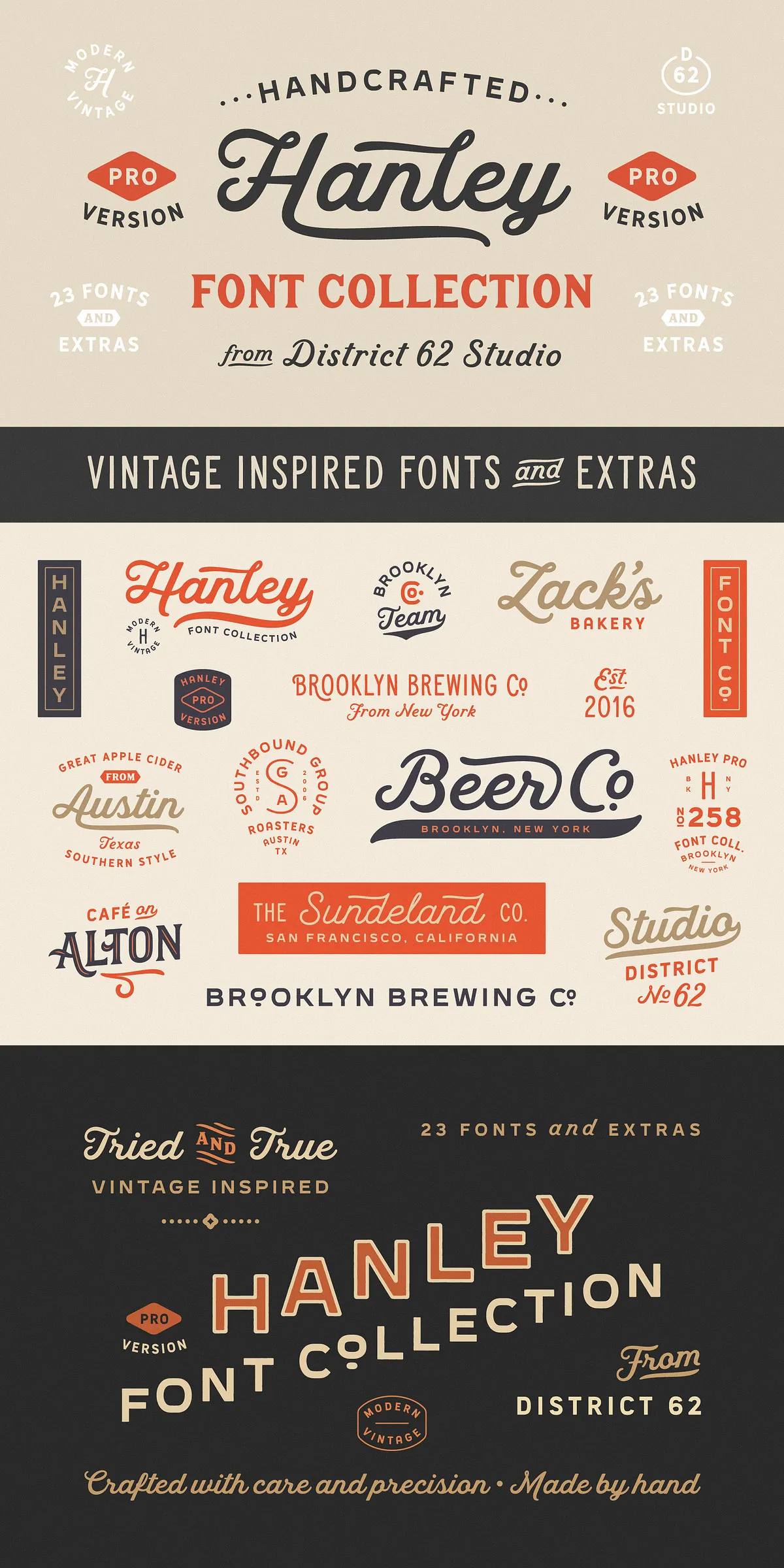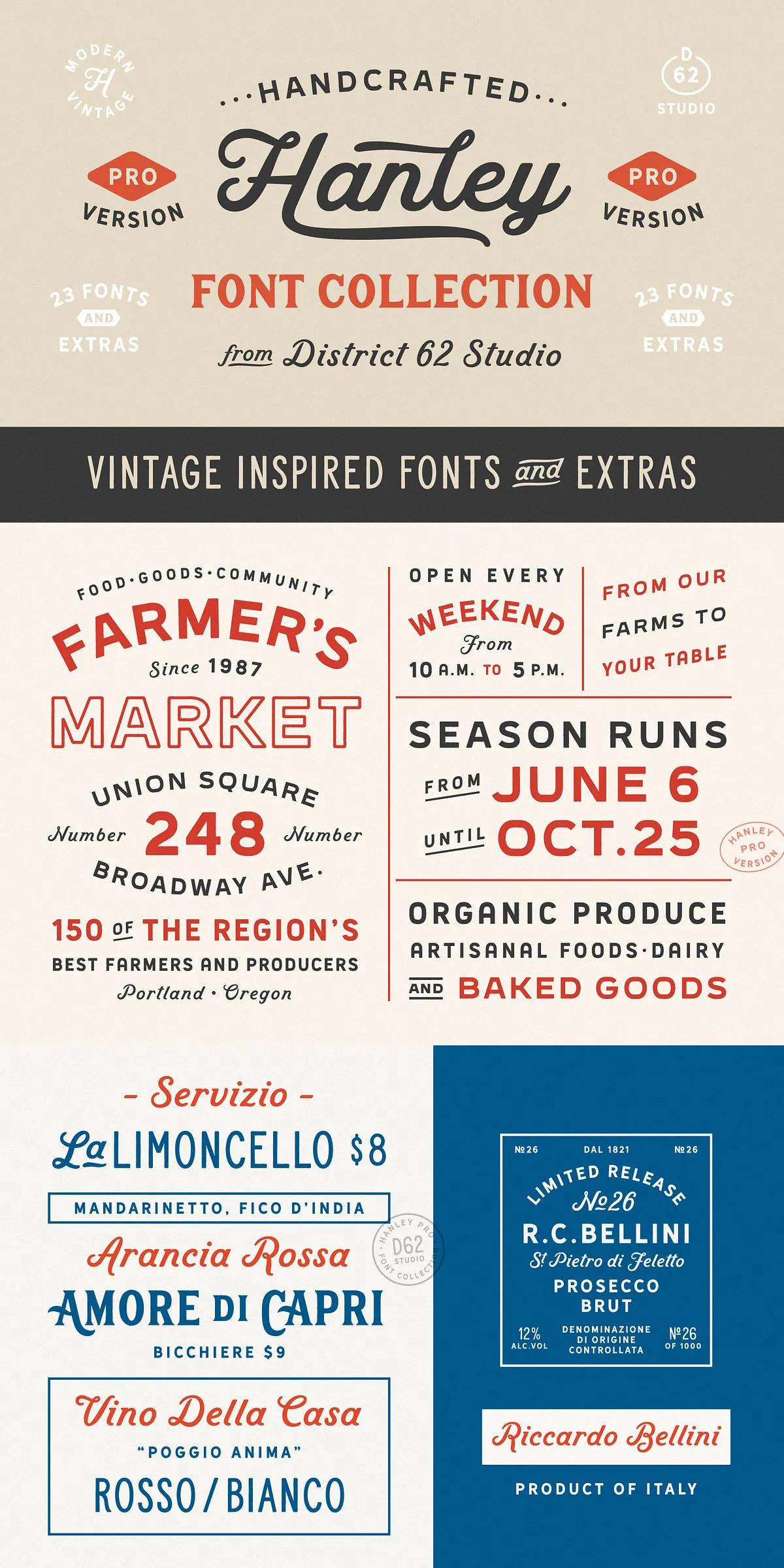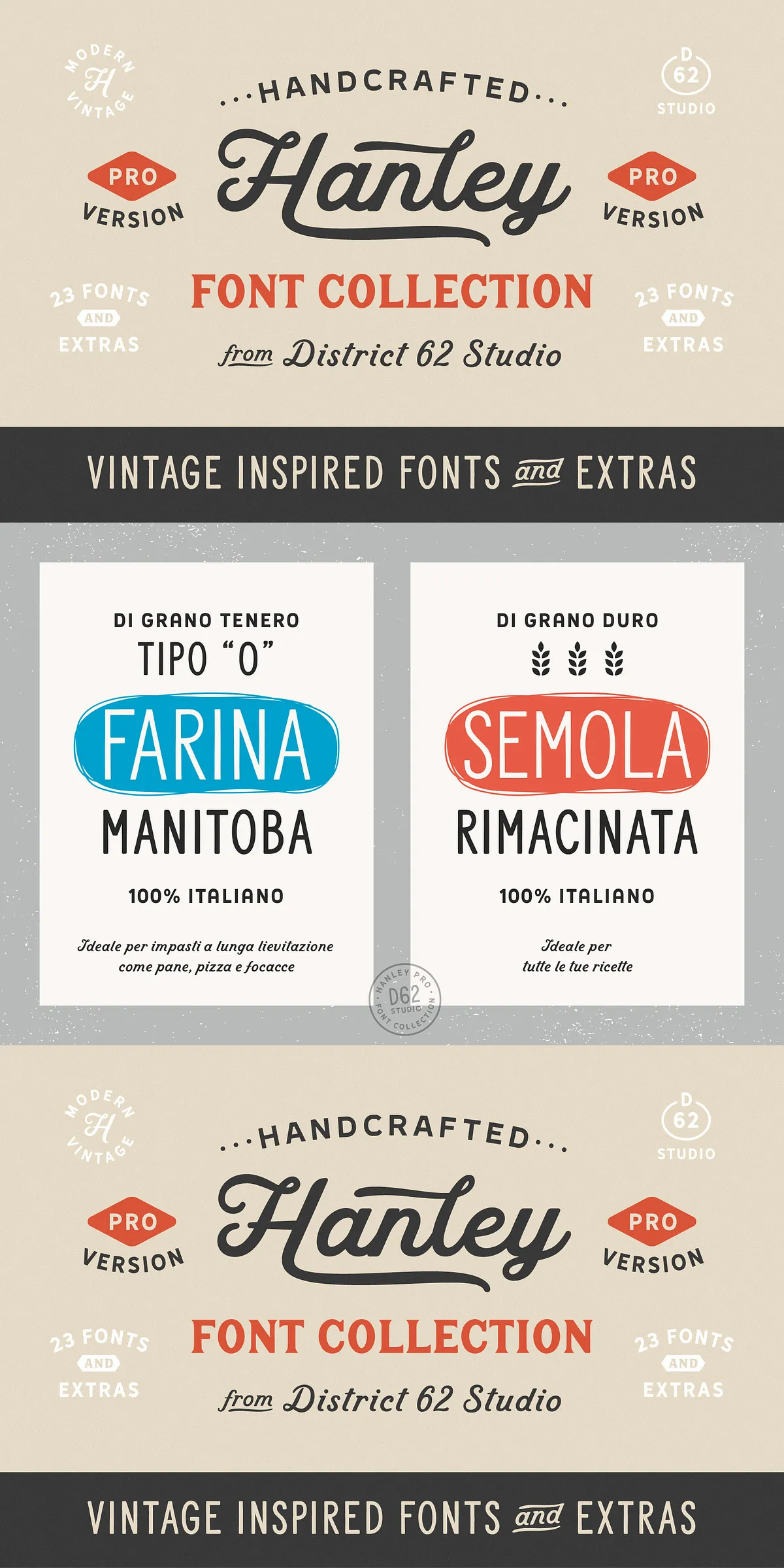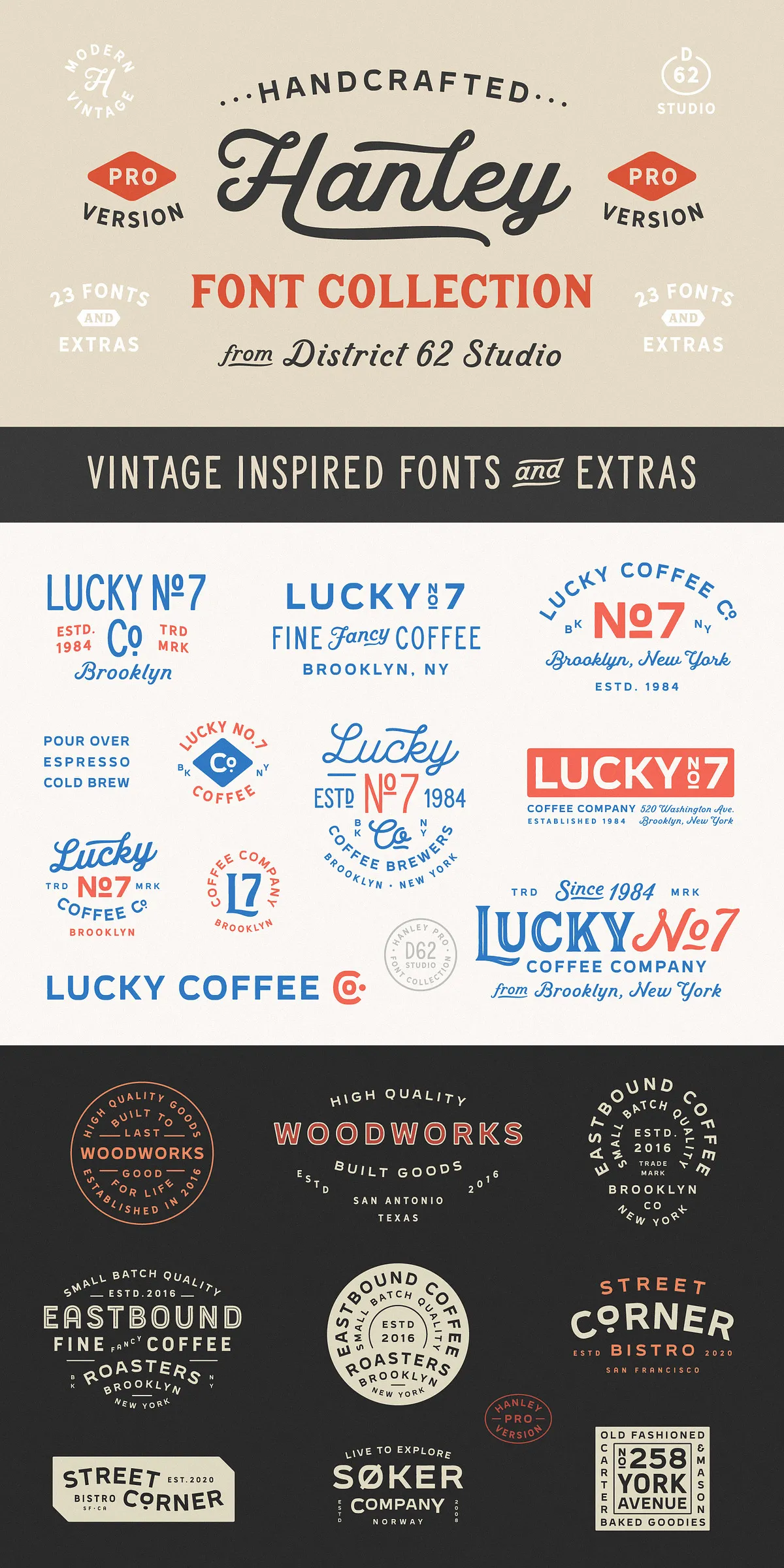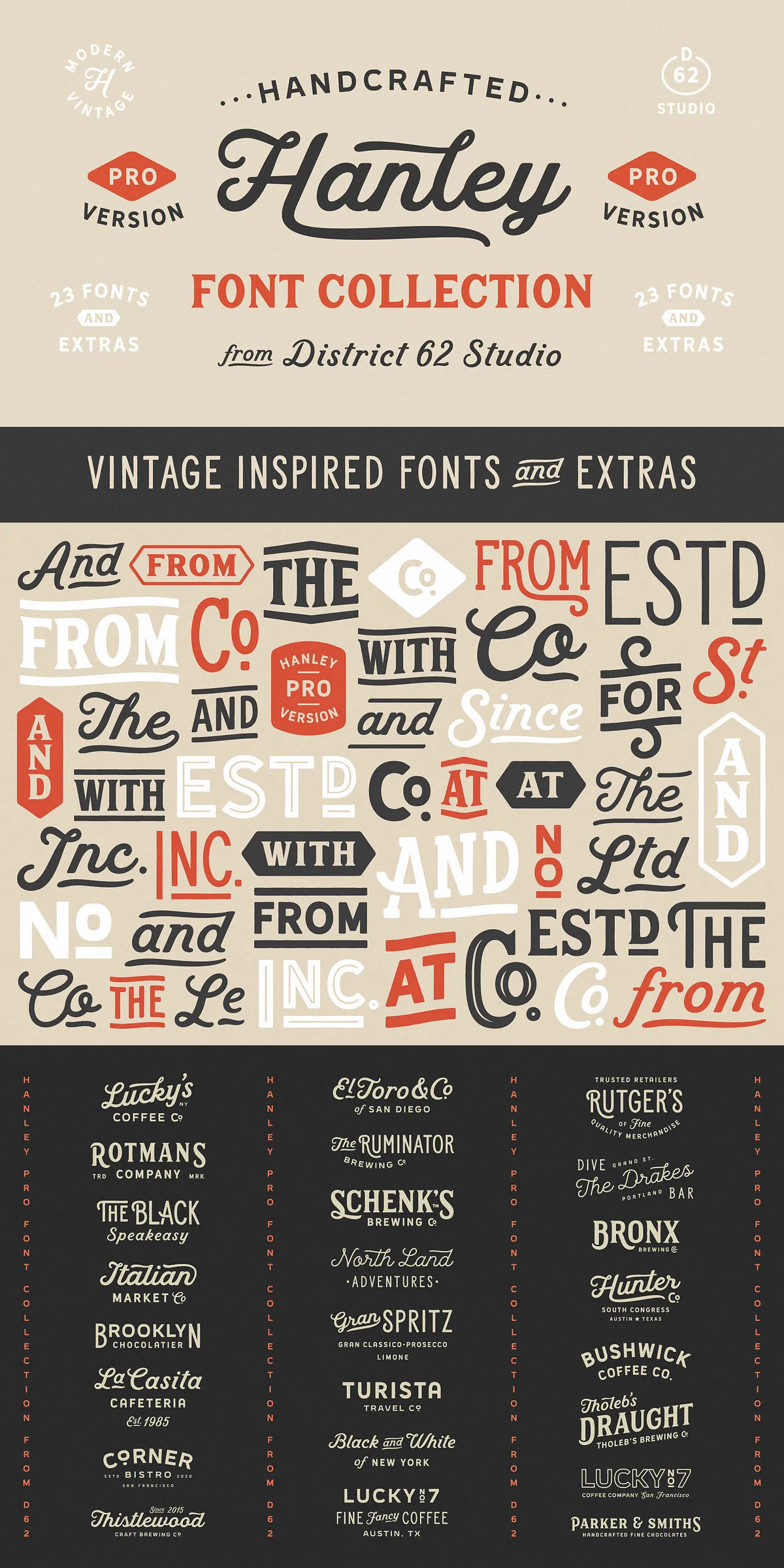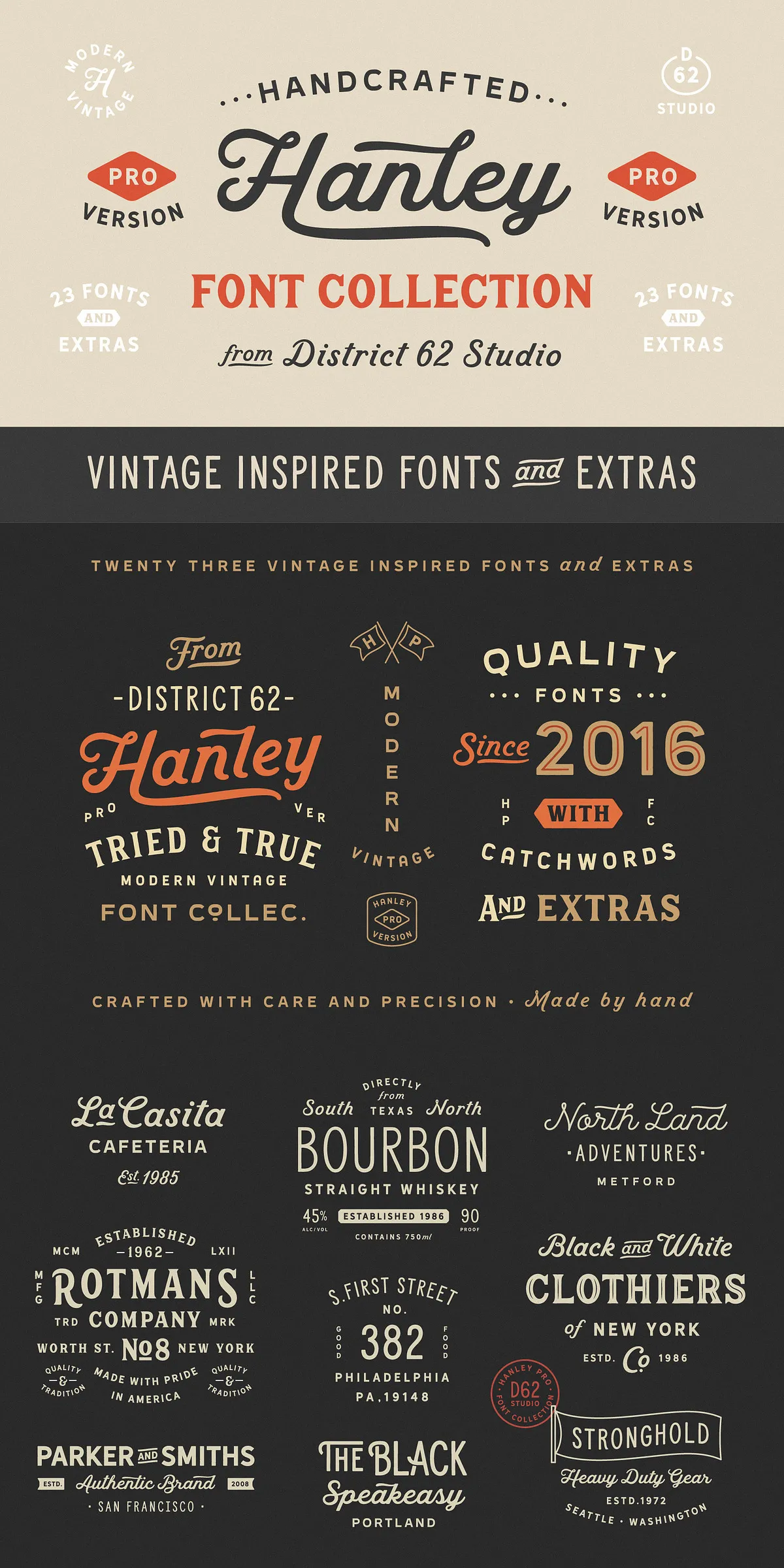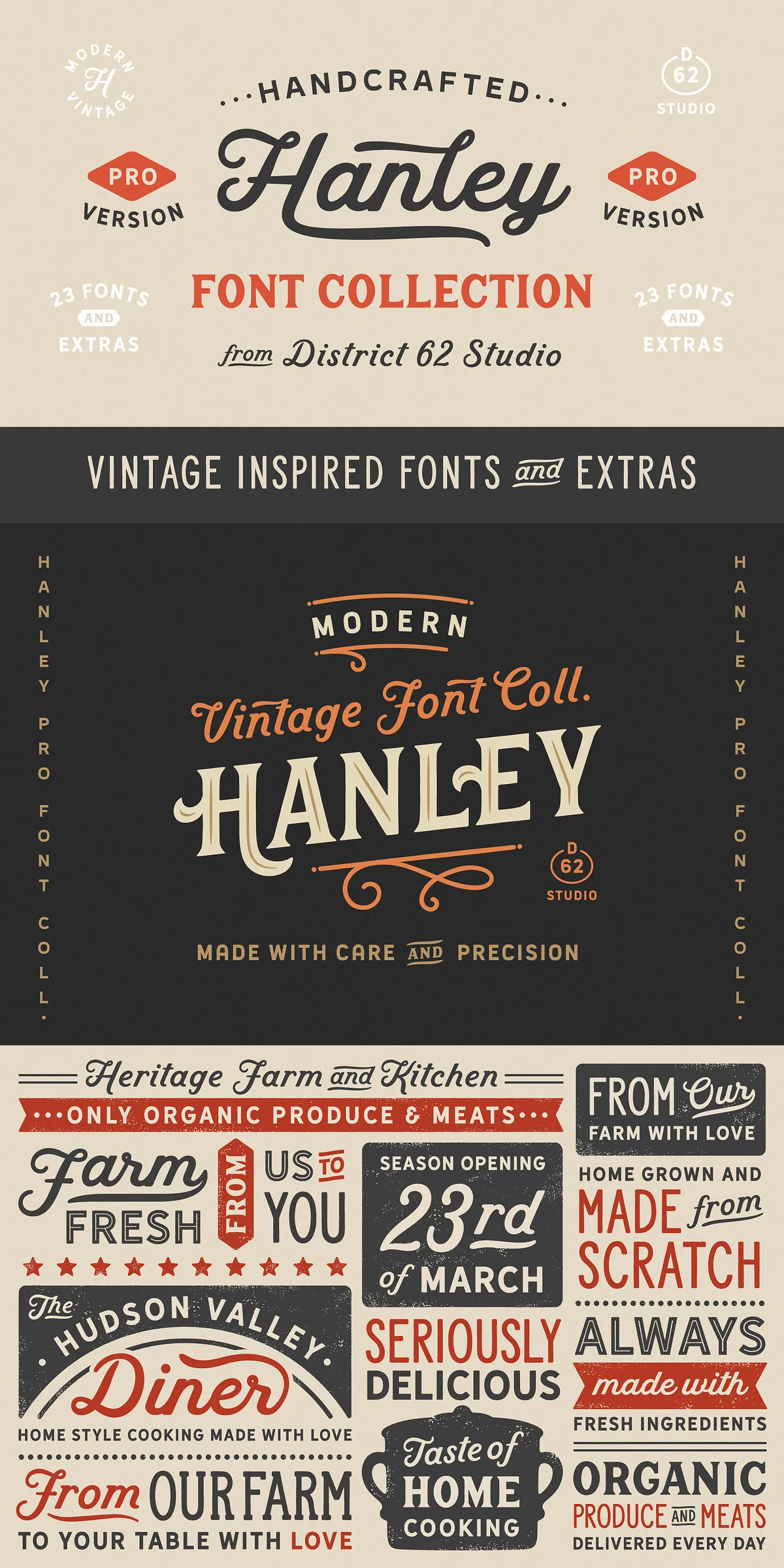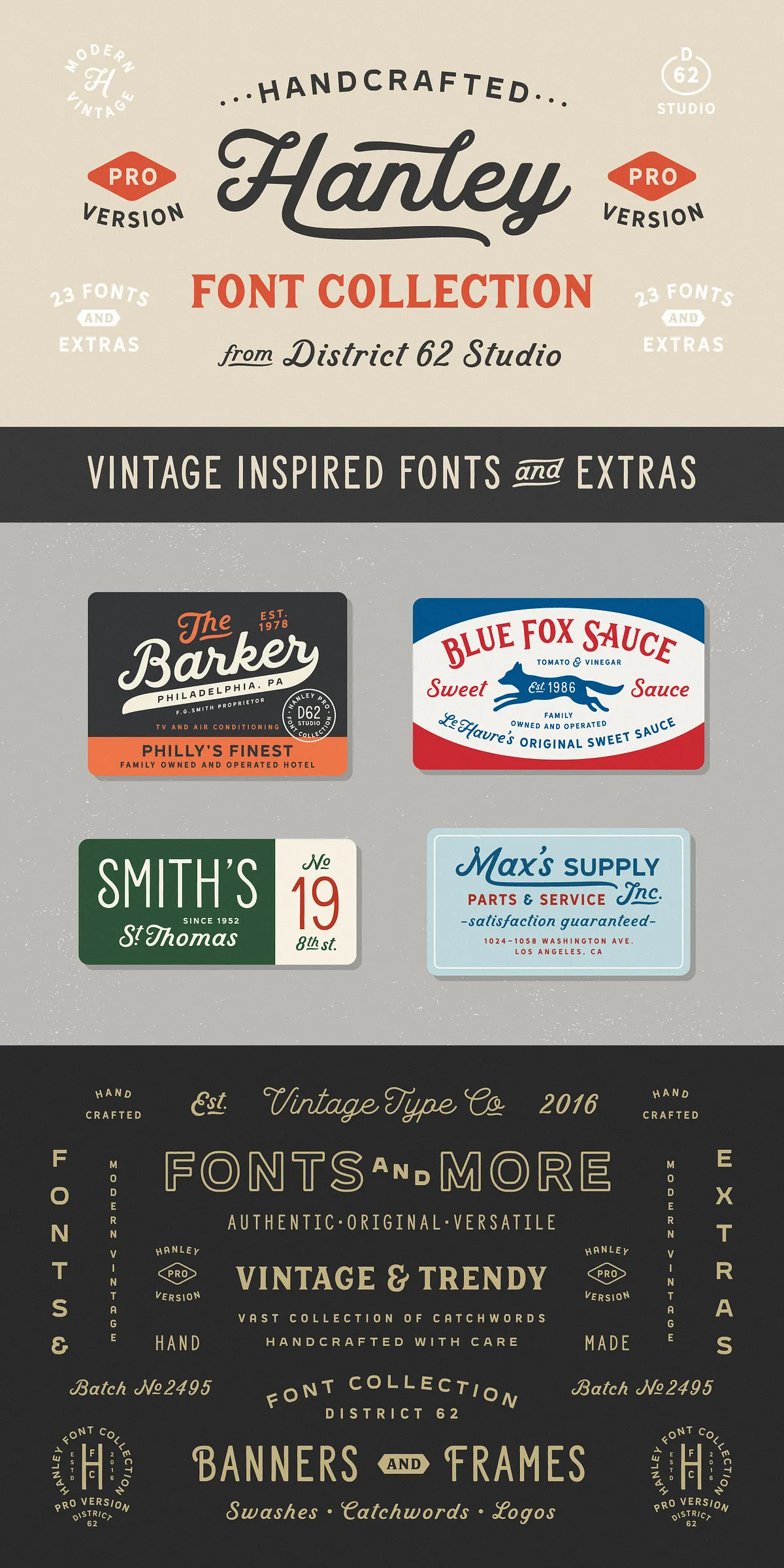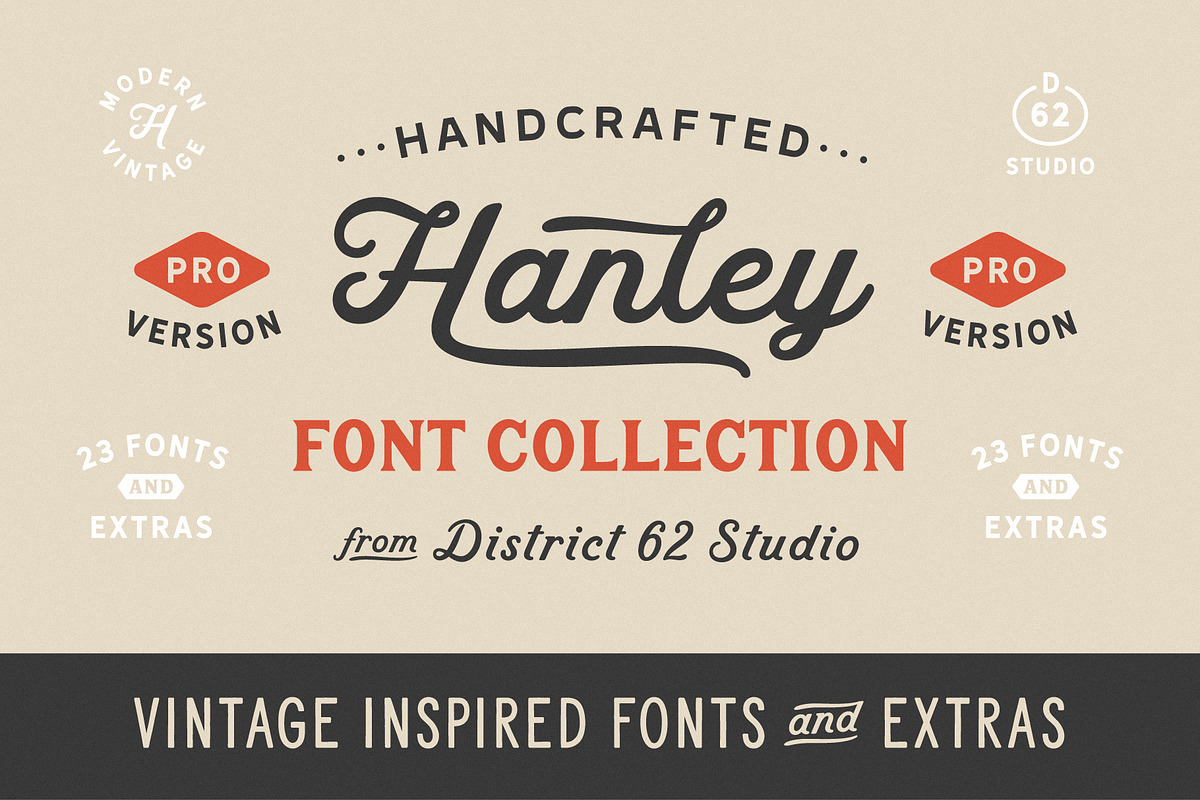
Revolutionize your design toolkit with the new PRO VERSION of the Hanley Font Collection—a bold evolution of a beloved type family now packed with innovation, style, and unmatched flexibility. This exclusive update delivers 10 new, high-impact font styles, 36 stunning bonus logos, advanced typographic features, and expanded language support. Whether you’re crafting brand identities, editorial layouts, or digital experiences, Hanley Pro is engineered to elevate your work with precision, personality, and professionalism.
What’s New in Hanley Pro? A Complete Design Powerhouse
Forget incremental updates—Hanley Pro is a full-scale reimagining. We’ve poured over feedback from designers, added groundbreaking new styles, and enhanced every element for real-world performance. Here’s what sets this version apart:
- 10 New Exclusive Font Styles: Expand your creative palette with a fresh range of typefaces built for modern versatility. Including the Hanley Script Alt, Hanley Italic, and the dynamically flexible Sans Two and Inline.
- Expanded Sans Dimensions: Introduce visual rhythm and scale with the new Sans Wide and Sans Extra Wide styles—perfect for headlines, banners, and bold typographic statements.
- Outline Variants: Now available in both Sans Wide Outline and Sans Extra Wide Outline—ideal for layering, masking, and creating custom visual effects in branding and digital design.
- Slim Variants with Bold Power: The Hanley Slim Bold and Hanley Slim Serif Bold offer razor-thin lines with commanding presence—perfect for minimalist yet impactful designs.
- Small Caps Expansion: Already strong? Now even better. The Block Styles are enhanced with full small caps support, unlocking new levels of typographic refinement.
- Advanced Character Set: More alternative glyphs, improved catchword integration, and over 700+ characters—ready for complex linguistic needs across 90+ languages.
- 36 Bonus Logos Included: Instantly elevate your brand projects with a curated set of 36 high-quality, editable logos that pair perfectly with Hanley’s aesthetic—ideal for designers, startups, and agencies.
Why Designers Are Switching to Hanley Pro
Design isn’t just about aesthetics—it’s about function, emotion, and impact. Hanley Pro was built with this philosophy in mind. Its new styles aren’t just visually striking; they’re designed to work together seamlessly, creating unified typographic systems that tell a coherent story. The inclusion of multiple alternates, small caps, and comprehensive language support means fewer compromises and faster workflow cycles.
Whether you’re building a luxury brand, a lifestyle website, or a corporate identity, Hanley Pro offers the flexibility to scale across formats and audiences—without sacrificing clarity or charm.
Perfect for Every Creative Challenge
From editorial publications to social media campaigns, Hanley Pro adapts to every context with ease. Its clean sans forms shine in digital interfaces, while the subtle serif details in the bold and italic variants bring warmth and elegance to print materials.
- Brand Identity Design: Use the slim, wide, and outlined styles to create unique visual signatures that stand out in competitive markets.
- Editorial & Publishing: The extended character support and small caps make Hanley Pro ideal for long-form content, periodicals, and multilingual magazines.
- Marketing & Social Media: Pair the expressive script variant with clean body text for dynamic posts, carousels, and ad designs that grab attention.
- Print & Packaging: The bold block styles and outline variants create high-impact visuals for flyers, posters, labels, and product packaging.
Built for Real Designers. Designed to Last.
Each variant in the Hanley Pro family has been tested under demanding conditions—scaling from 8pt body text to 200pt headlines, supporting global characters, and performing flawlessly across print and screen. The fonts are not only aesthetically rich but technically robust, ensuring your projects remain future-proof.